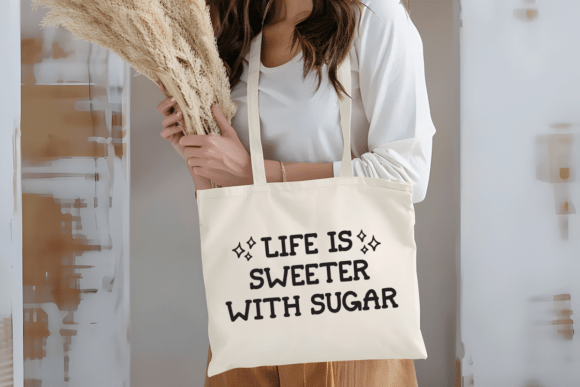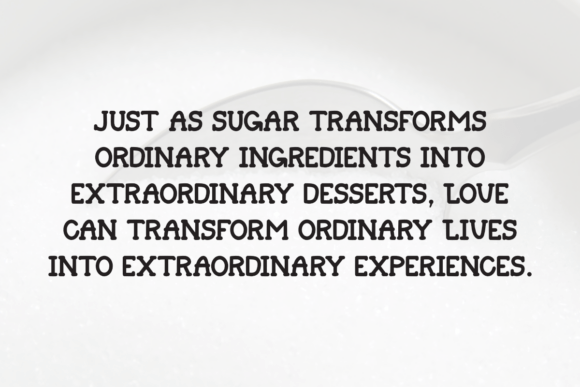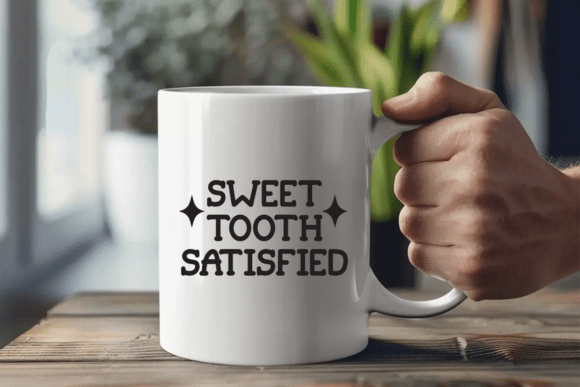
Sugar Meadow Font
Sugar Meadow is a sweet and soft slab serif font with a quirky personality. Its rounded serifs and playful shapes create a delightful balance between fun and professionalism. Great for food-related branding, boutique packaging, or joyful editorial design.